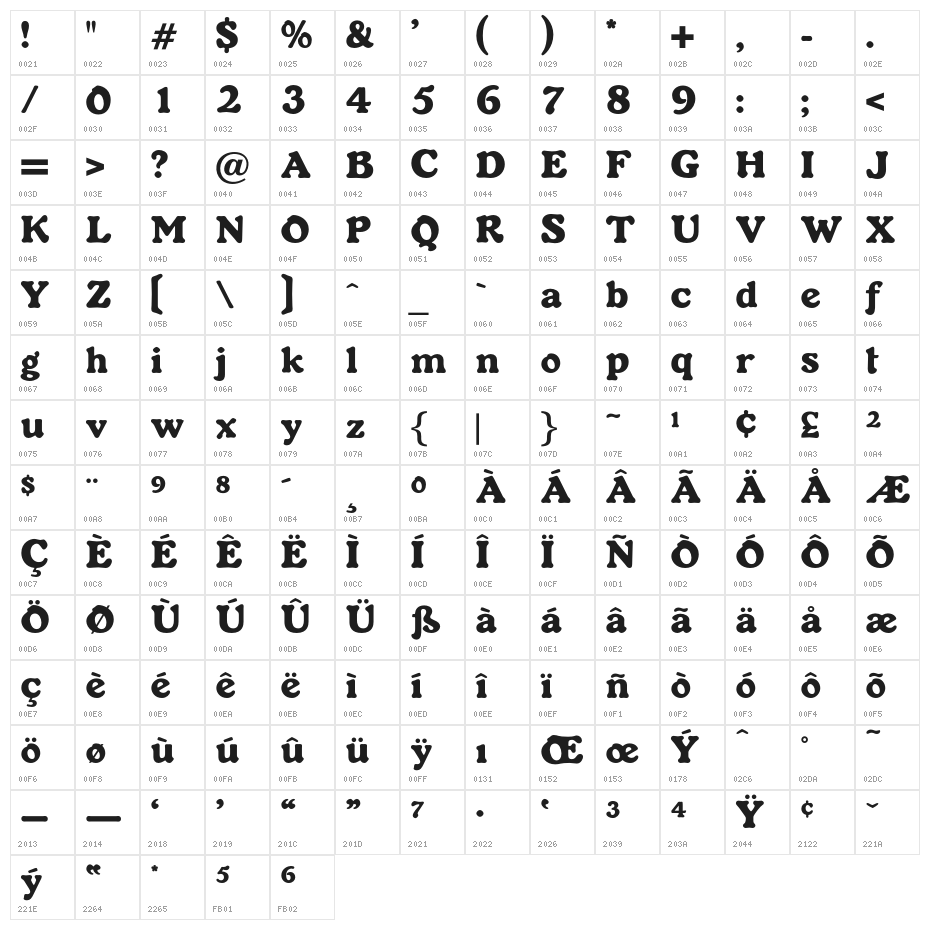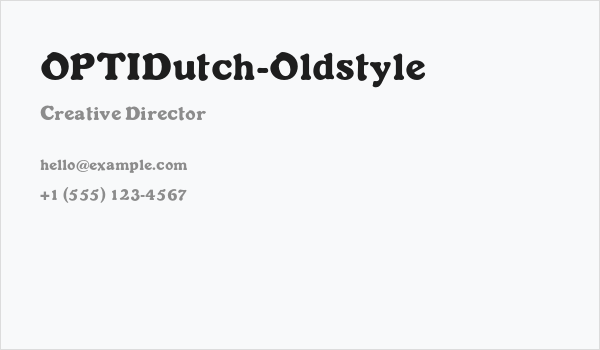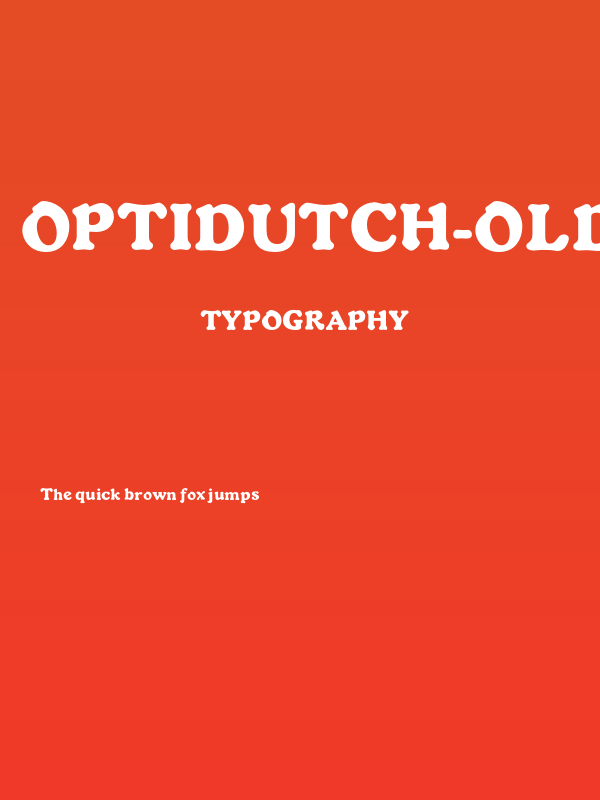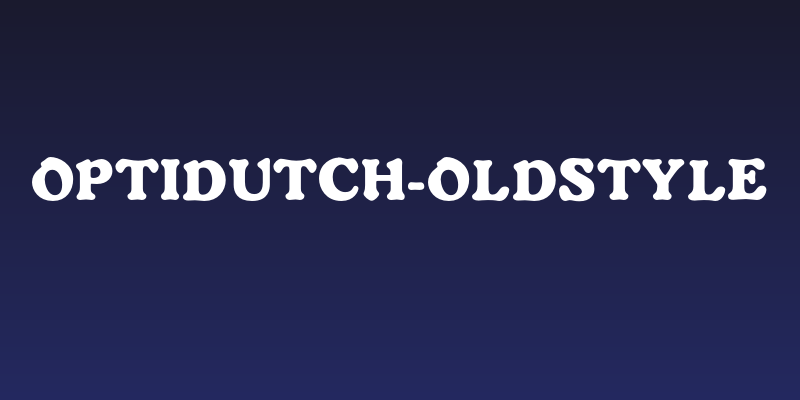
OPTIDutch-Oldstyle Font
OPTIDutch-Oldstyle Description
This font exhibits a classic and robust style, characterized by its bold and rounded serifs. The letters have a strong presence with slightly thick strokes, giving it a vintage and authoritative appearance. The uppercase letters are particularly prominent, with a consistent weight throughout. The lowercase letters maintain a similar boldness, ensuring readability and a cohesive look. Numbers and special characters follow the same design principles, making them stand out effectively. This font's overall design is reminiscent of traditional typesetting, offering a sense of history and reliability.
| Proposed Projects | Ideal for projects requiring a vintage or historical feel, such as book covers, posters, branding for traditional products, or any design that benefits from a classic touch. |